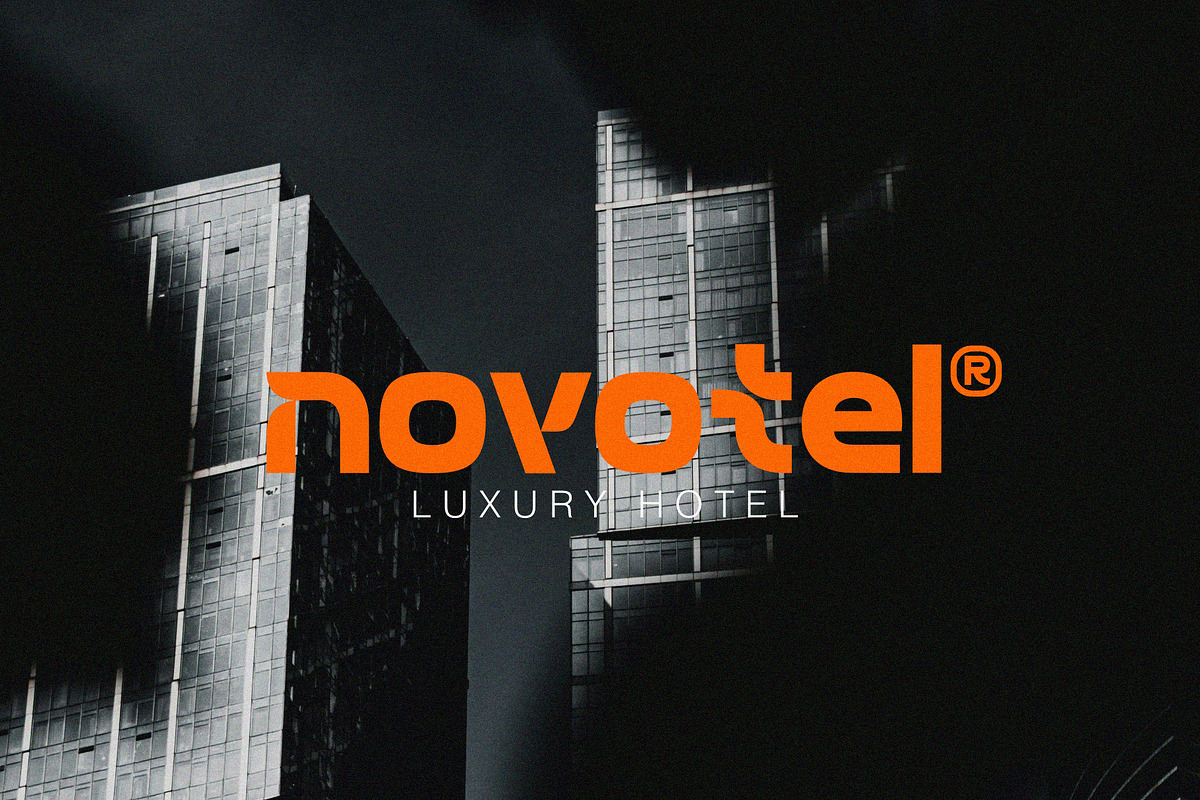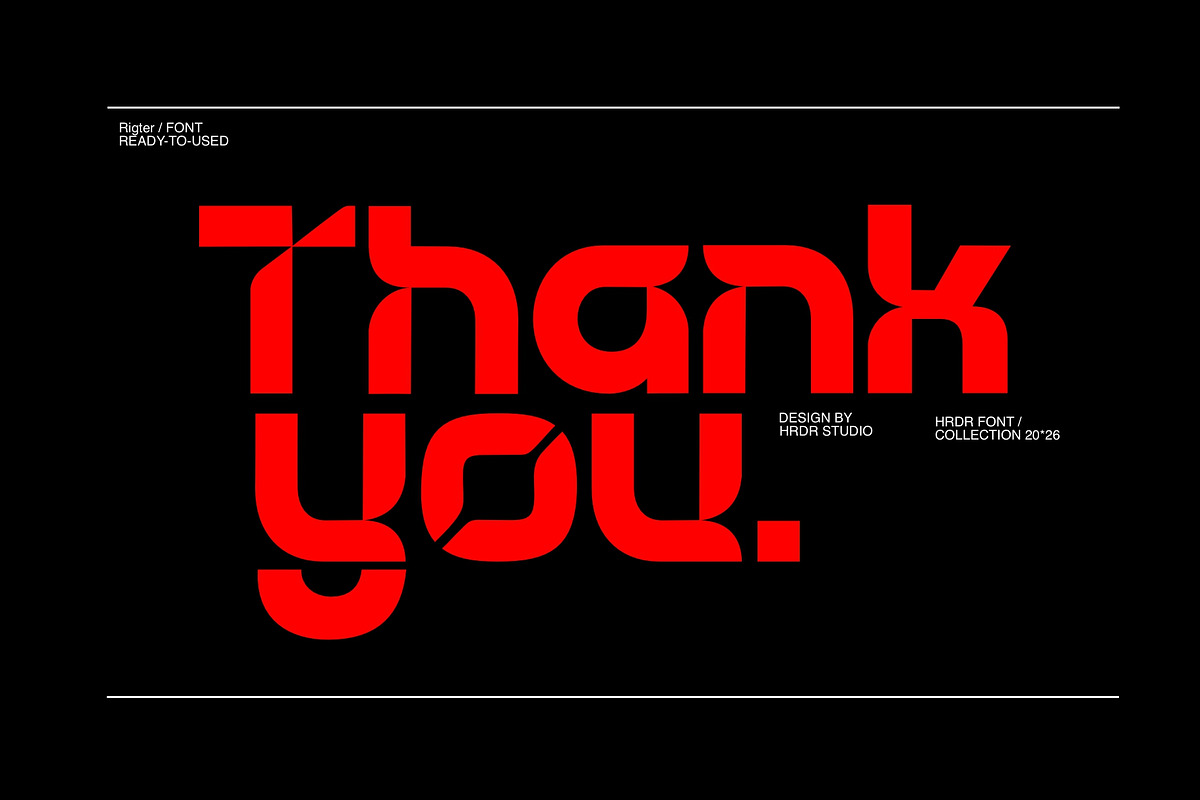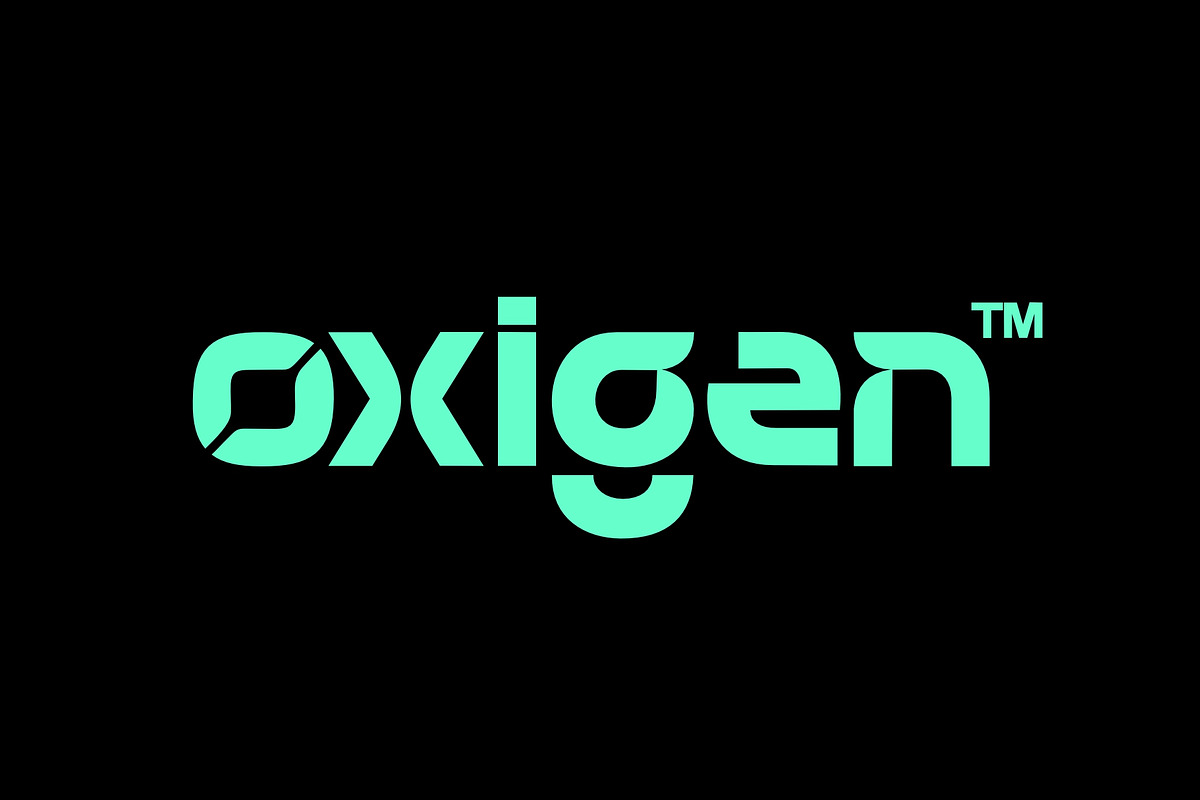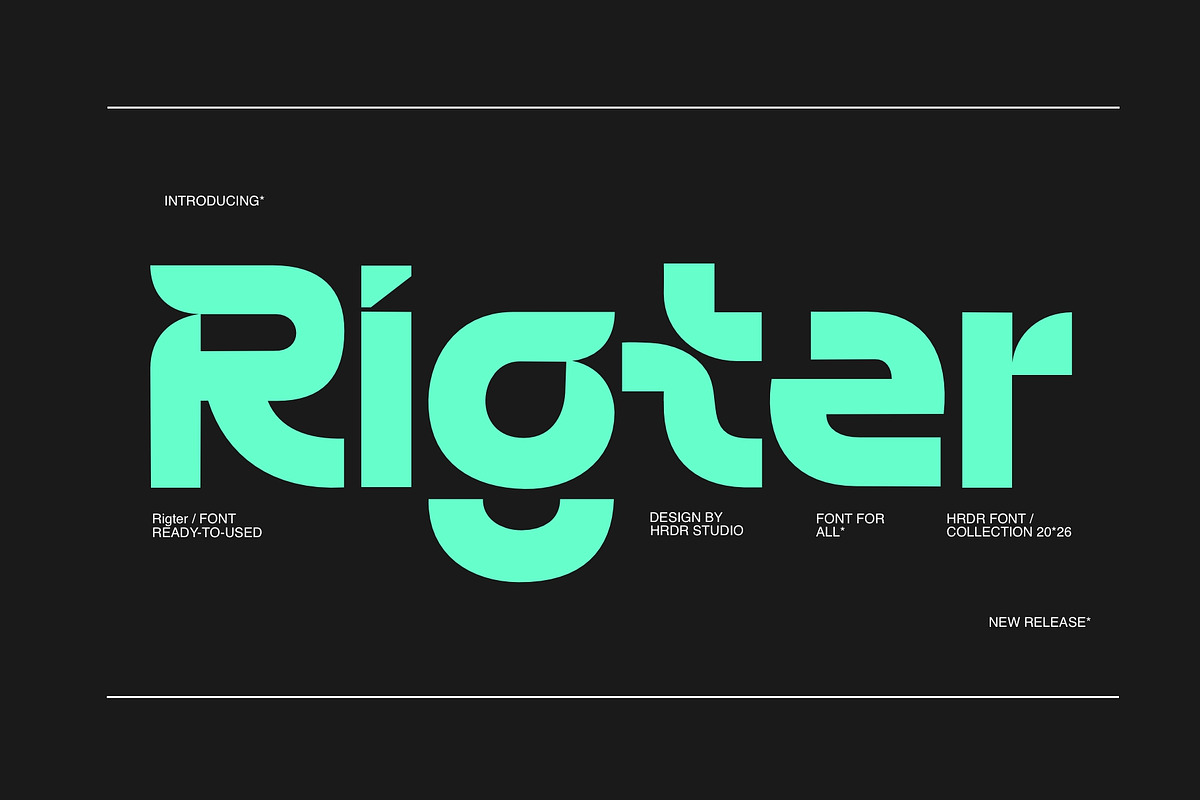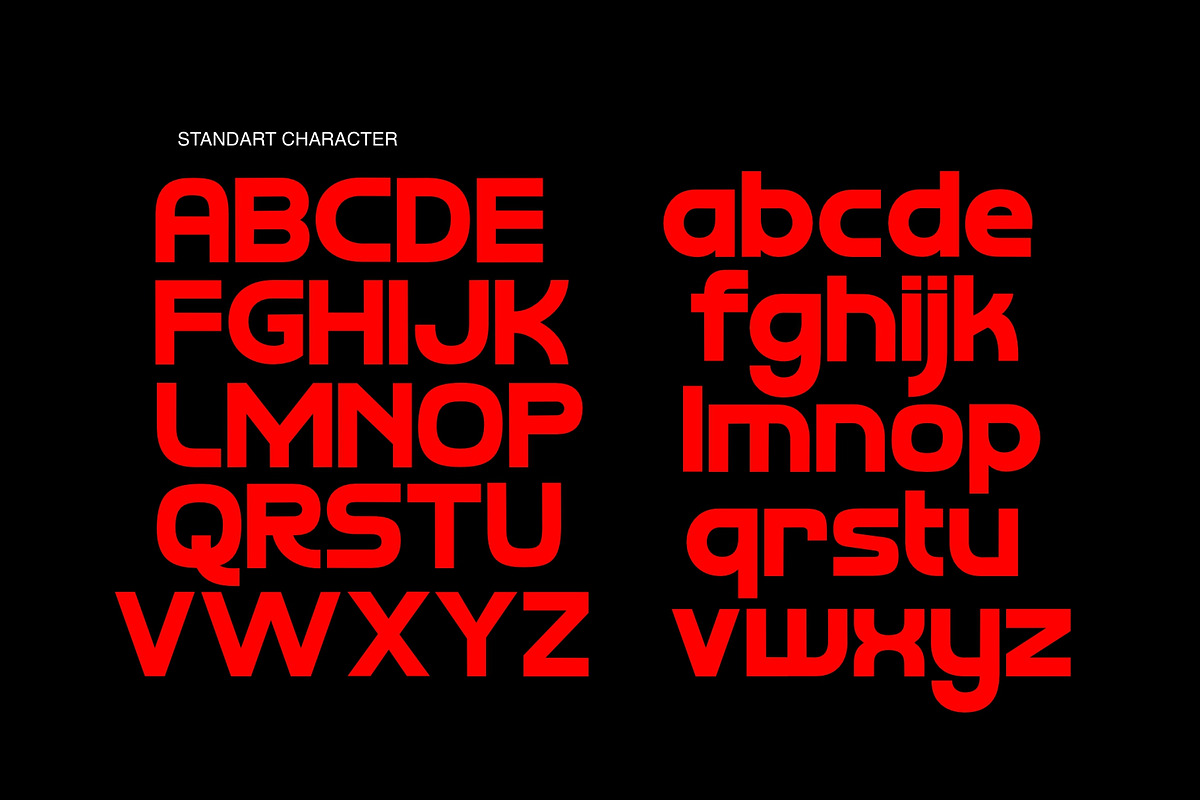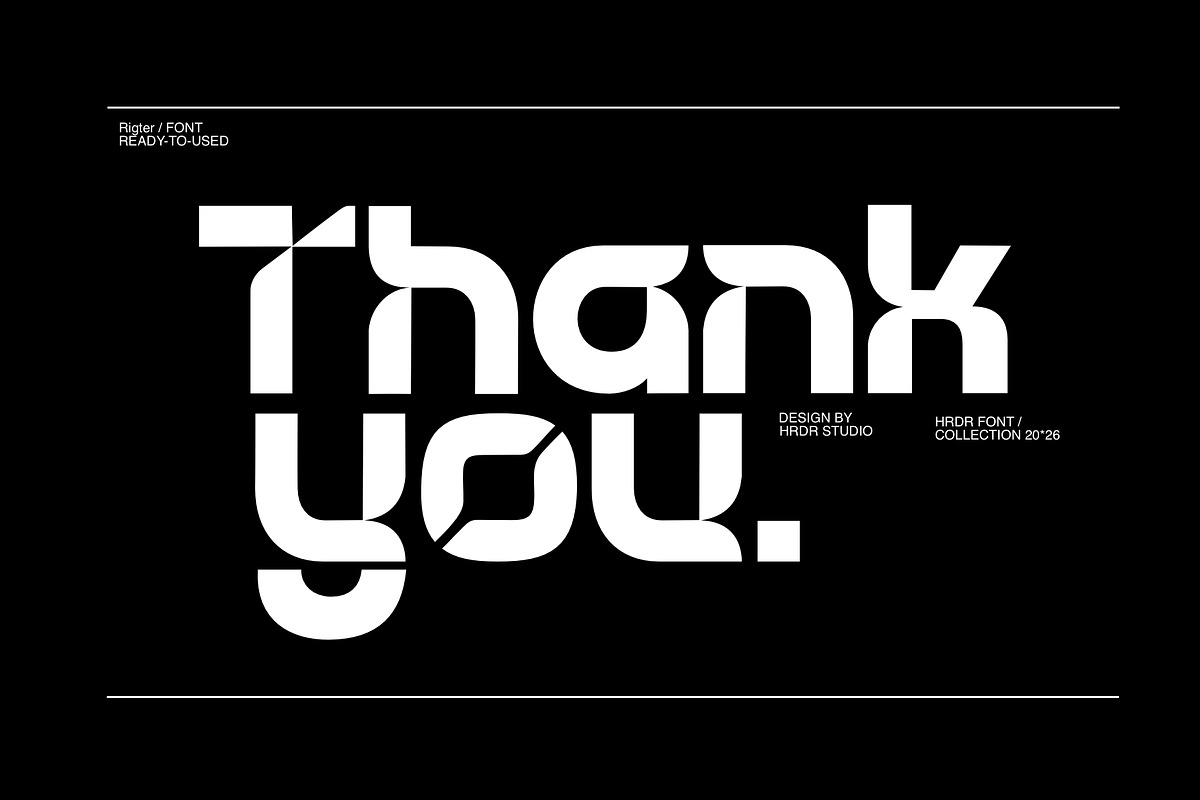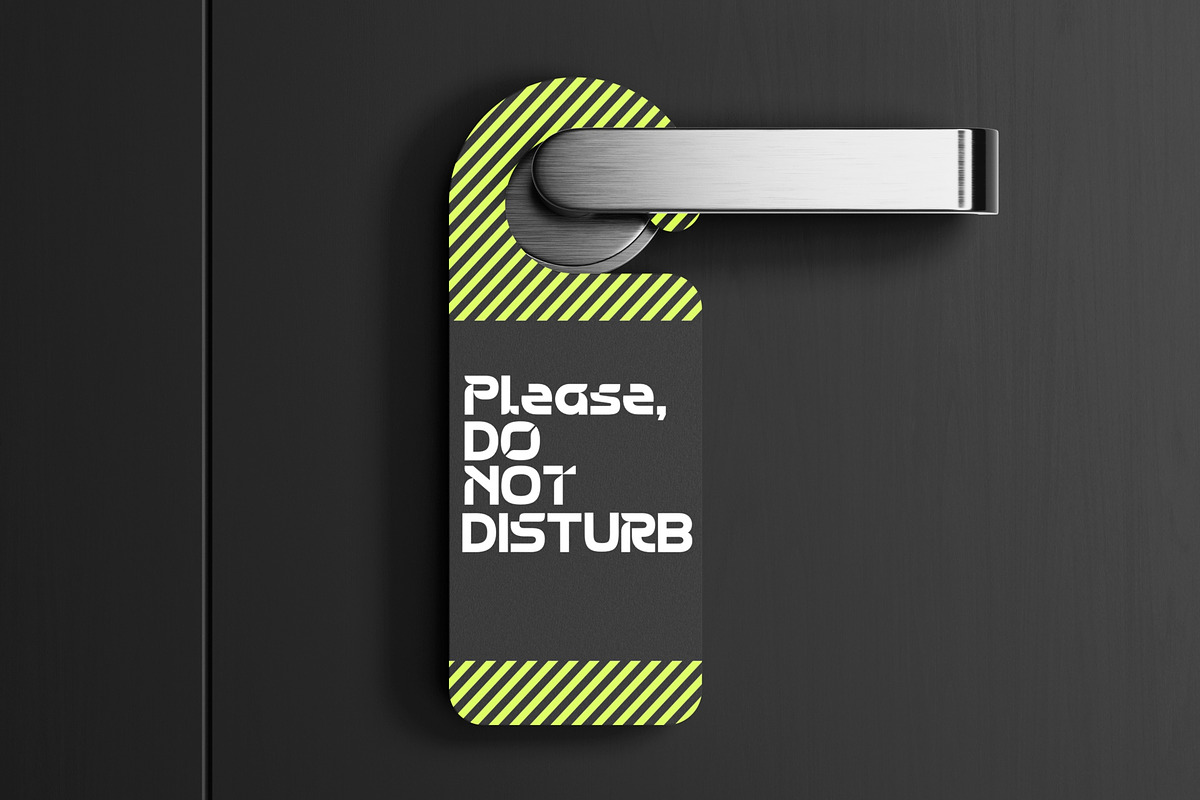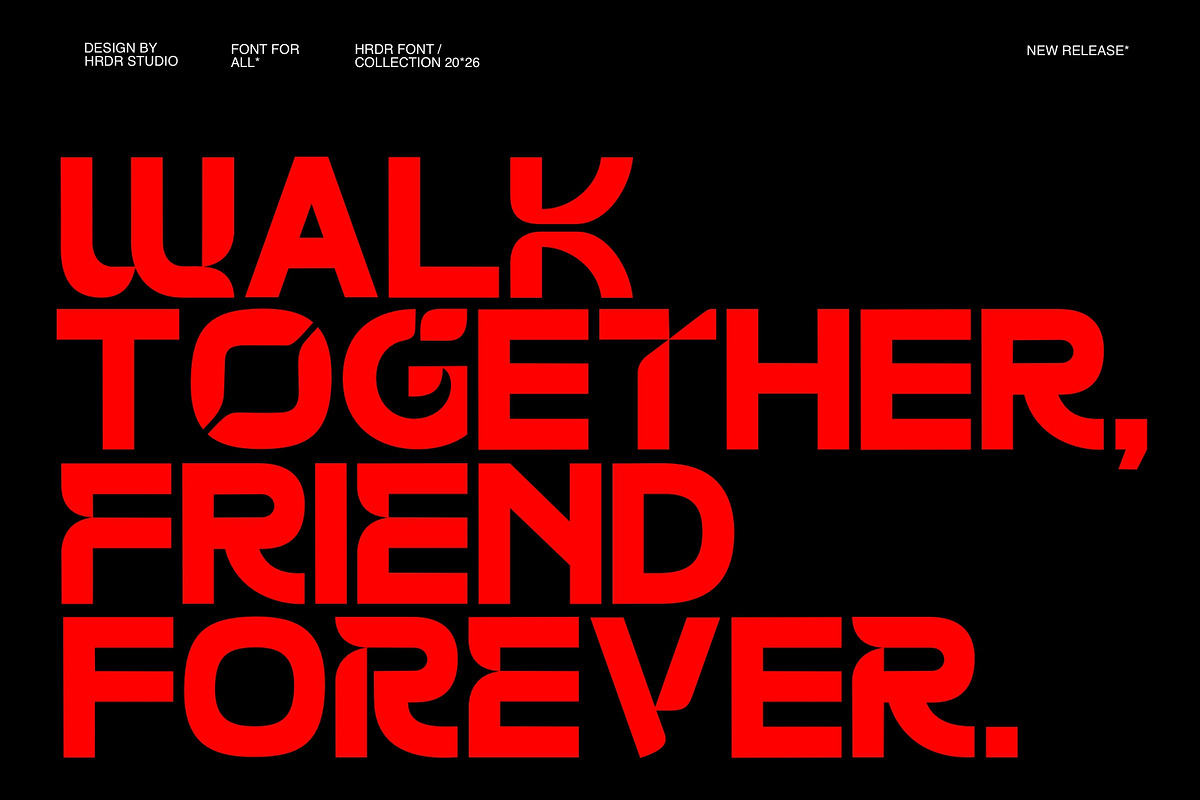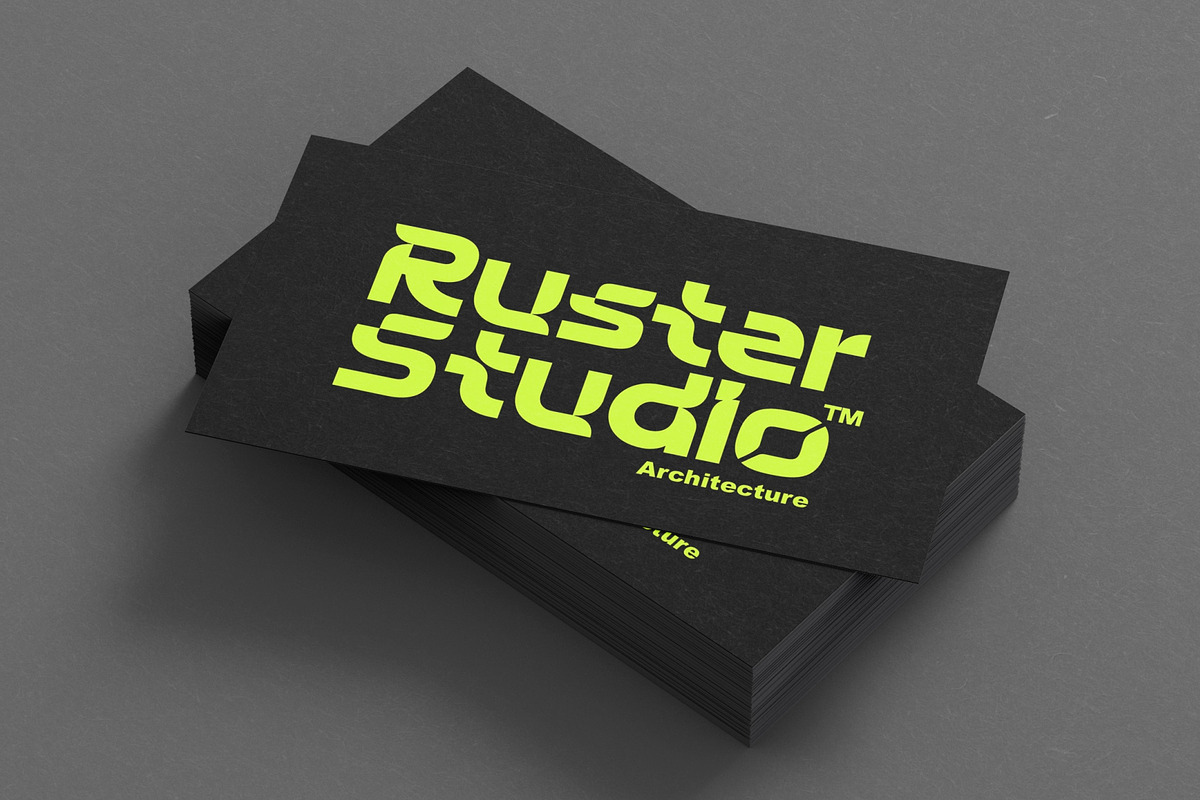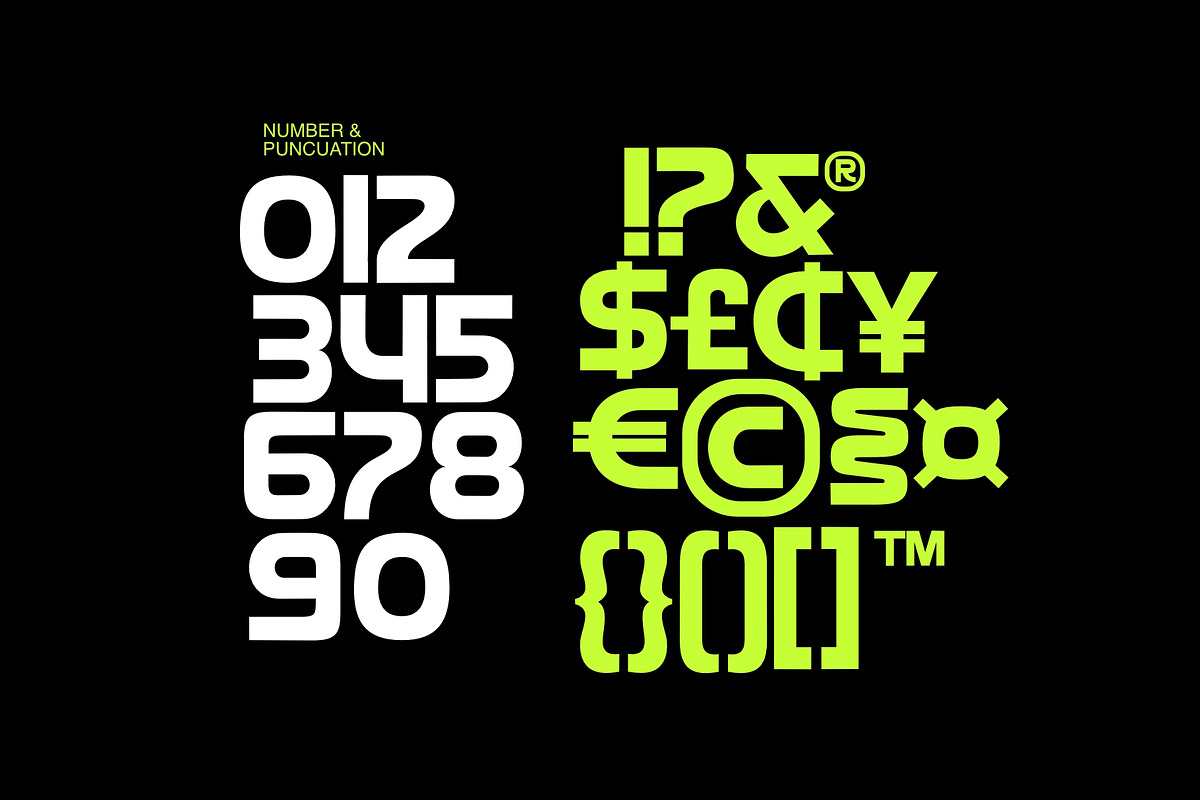
Rigter
Embrace a contemporary aesthetic with Rigter, a versatile type style ideal for logos, branding, film production, and more. Rigter allowing extensive creative flexibility for any project.
With Rigter, achieve an elegant yet strong visual identity suitable for various applications, from motion graphics to packaging.
- Numeric and Multilingual support
- Ligatures for effortless connection
- Stylistic Alternates with Ss01, Ss02 & Ss03 for creativity and customization